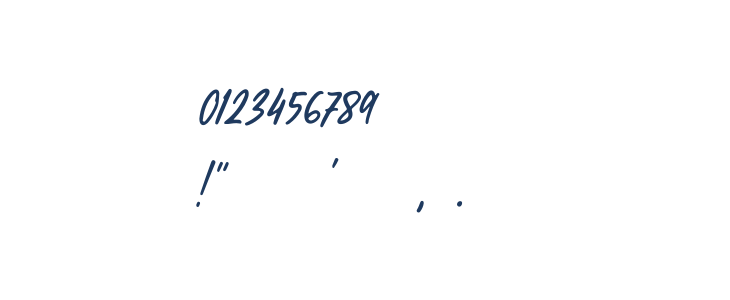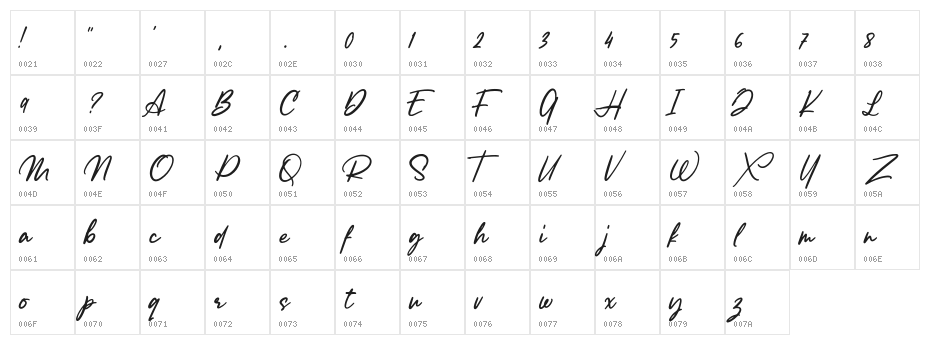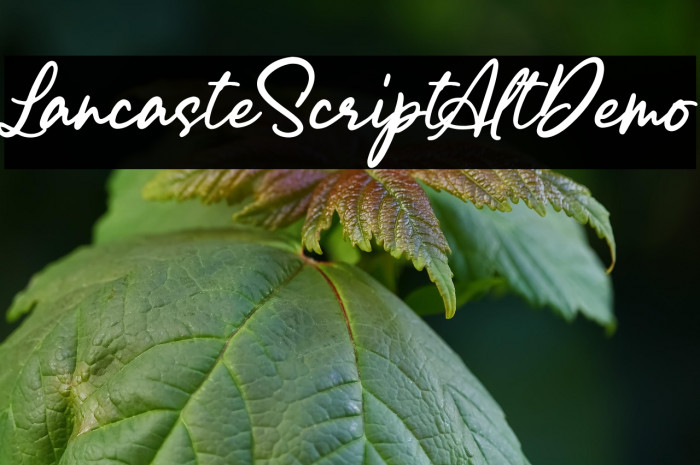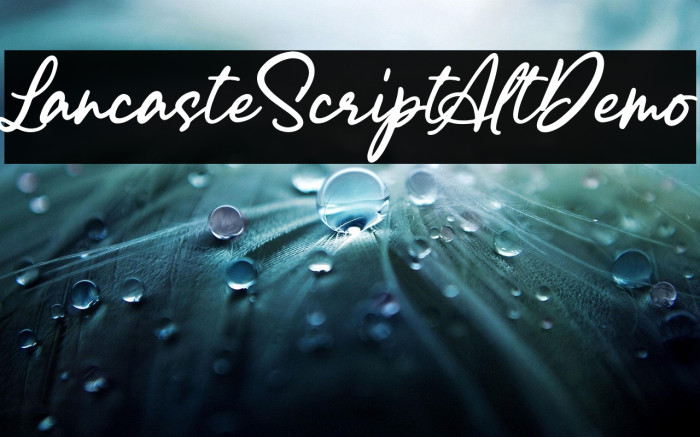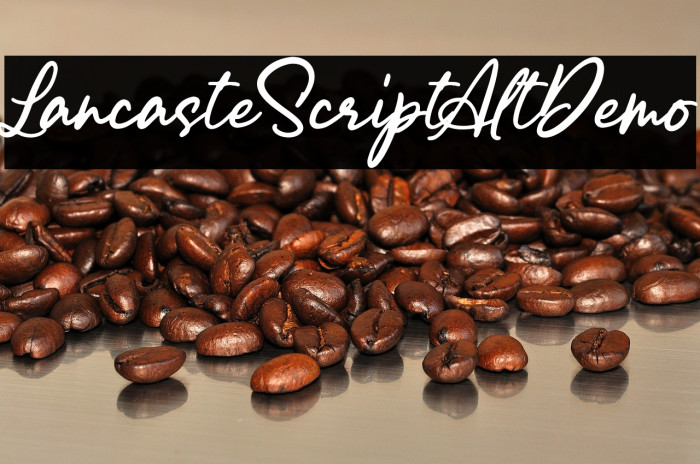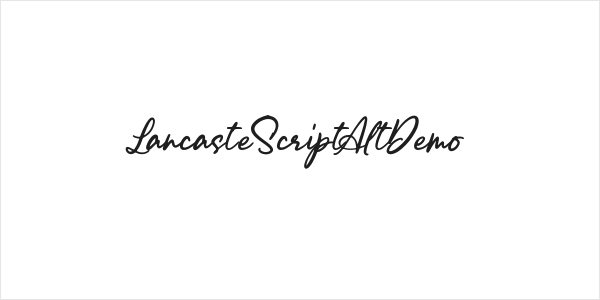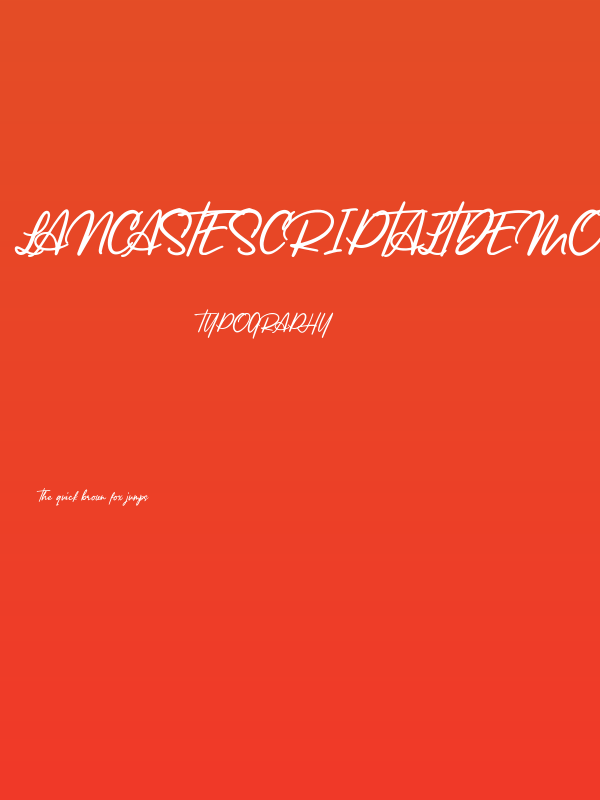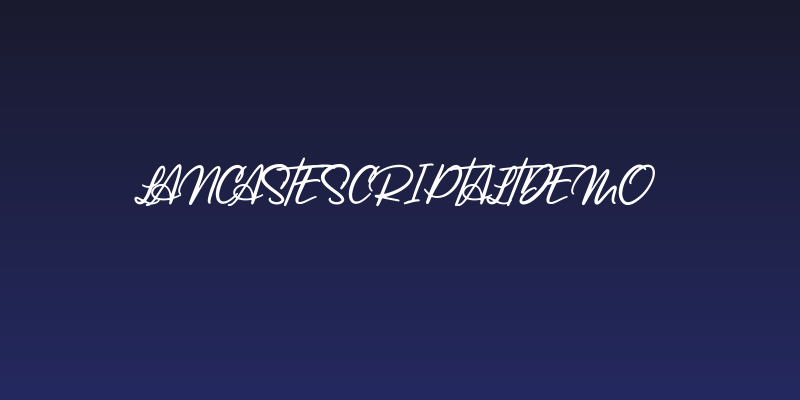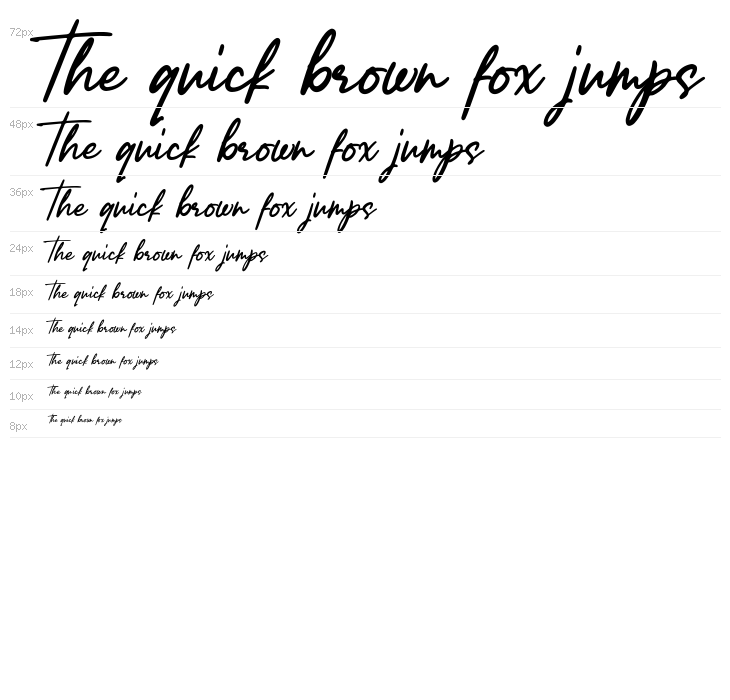
LancasteScriptAltDemo Font
LancasteScriptAltDemo Description
This font features a dynamic and fluid script style, characterized by its elegant and flowing letterforms. Each character is crafted with a sense of movement, giving it a handwritten appearance that is both stylish and personal. The uppercase letters are bold and sweeping, while the lowercase letters maintain a consistent rhythm and grace. The numerals are clear and complement the overall aesthetic. This font is perfect for projects that require a touch of sophistication and a personal touch, such as invitations, branding, and creative designs.
| Overall Style | Elegant and Handwritten |
| Use Case | Logos, Invitations, Creative Designs |
| Proposed Projects | Ideal for wedding invitations, personal branding, greeting cards, and artistic projects. |